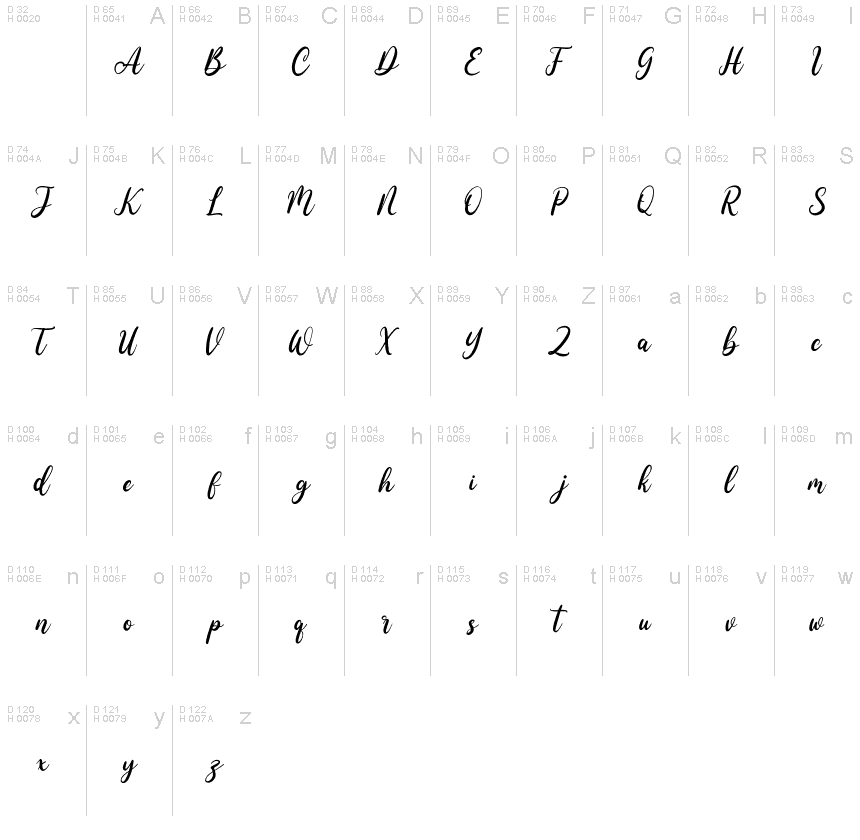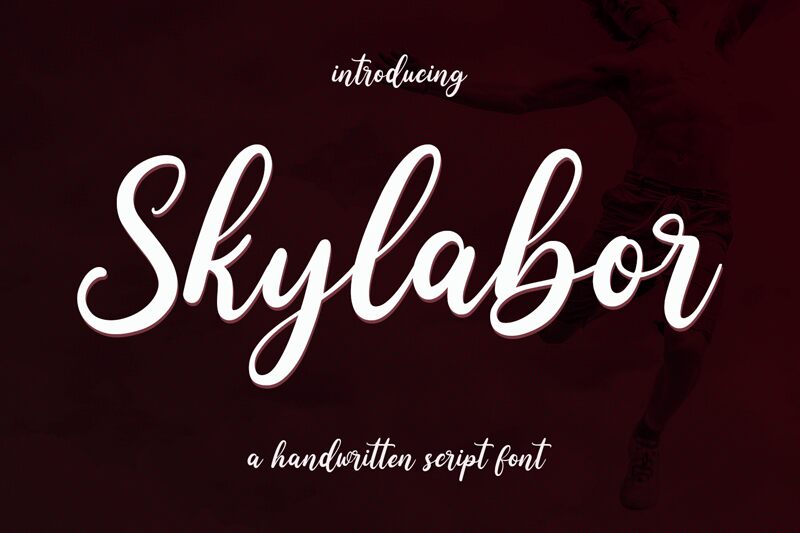
Skylabor Free Regular
Skylabor, created by Maulana Creative, is an exquisite semi-light handwritten script font that exudes elegance and charm. With its flowing strokes and delicate curves, this font lends a touch of sophistication to any project. Perfect for wedding invitations, greeting cards, or branding materials for upscale businesses. Its versatility also makes it suitable for product packaging, fashion magazines, or beauty blogs seeking a refined and feminine aesthetic. Let Skylabor elevate your designs with its graceful demeanor and timeless appeal.